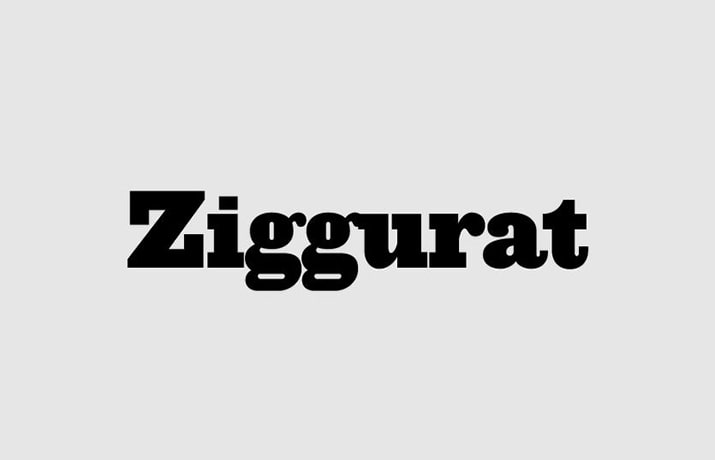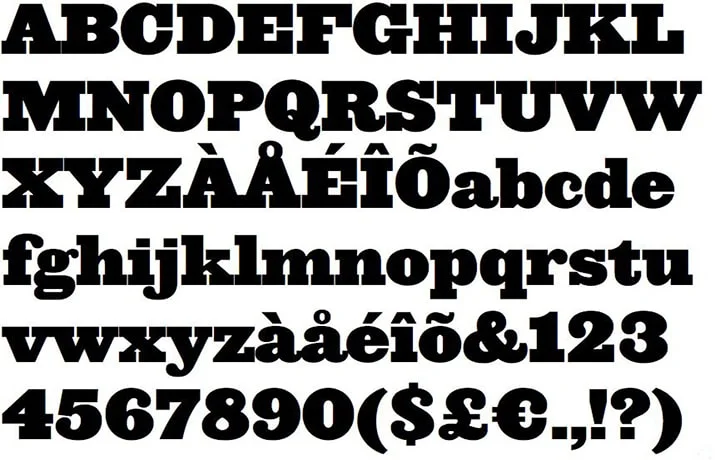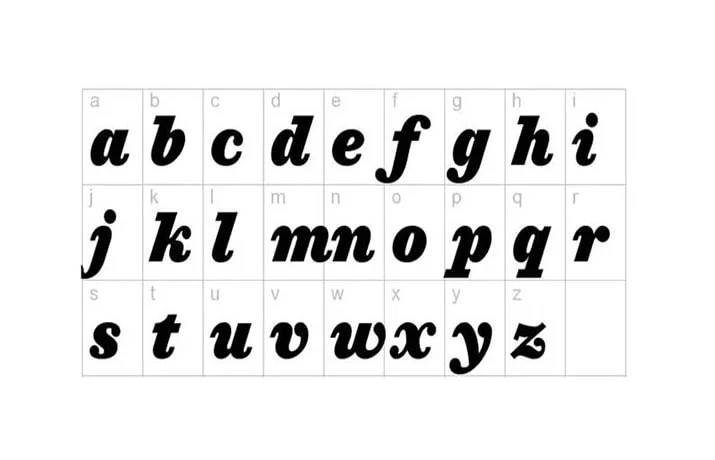
Today we are introducing a new font family called Ziggurat Font. It is a bold slab serif font you can use to create titles and headers for posters, website headers, and banners.
The Hoefler & Frere-Jones (Hoefler & Co.) a well-known font foundry takes the charge of designing and sharing it for the first time in 2000.
It’s a great typeface with a cohesive nature that looks amazing in a wide range of uses. This works especially well in displays and long text paragraphs.
Let’s take a look at the character map images here to get a fair idea of the structure of this font. With its attractive punctuation marks, it is an ideal typeface for upcoming fonts.
- Uppercase and lowercase letters, numbers, symbols, and punctuation
- 208 unique glyphs
- 63 multilingual languages support
| Font Name: | Ziggurat Font Family |
| Style: | Slab Serif, Display, Typeface |
| Font Designer: | Hoefler & Frere-Jones |
With its heavy texture, you can easily create movie posters, display titles, banner ads, game titles, posters, titles, banners, flyers, game development, unique emblems, printing on cards, comic covers, cartoon posters, and many other places also.
This font family has come in two variants including Ziggurat Black and Ziggurat Black Italic. So, it will cover almost every field where fonts are used.
What is a Ziggurat Font?
Today we are introducing a new font family called Ziggurat Font. It is a bold slab serif font you can use to create titles and headers for posters, website headers, and banners.